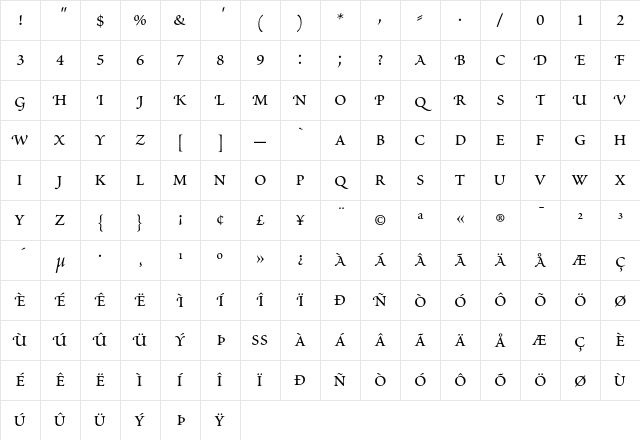
Poetica Roman Small Capitals
Style: Roman Small Capitals
Design Context for Poetica
Poetica is a composed and adaptable typeface that performs quietly and consistently across a wide range of design contexts.